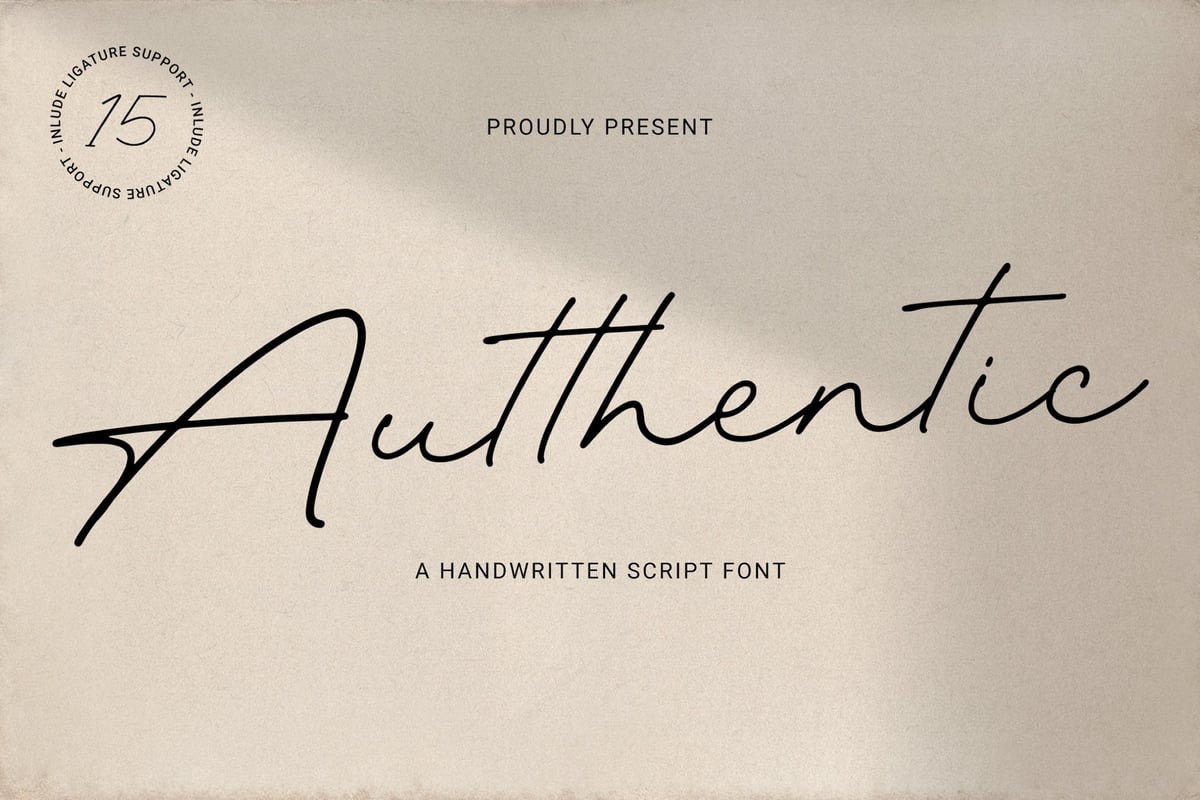
Autthentic – Handwritten Script Font
Elegant meets modern — a handwritten script font built for designs that need to feel personal and polished.
Autthentic is a flowing handwritten script typeface crafted with smooth strokes and a naturally authentic appearance. Its refined style makes it a versatile choice for a wide range of creative projects, from intimate invitations to bold brand identities.